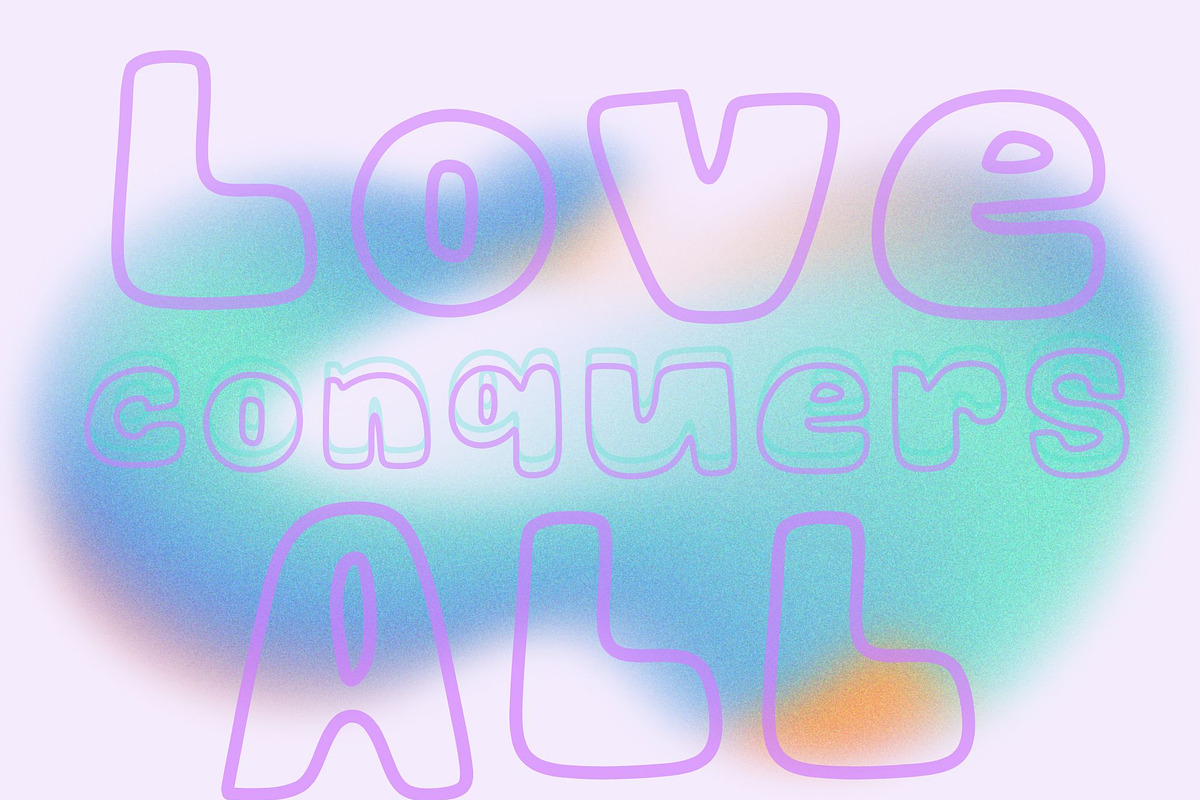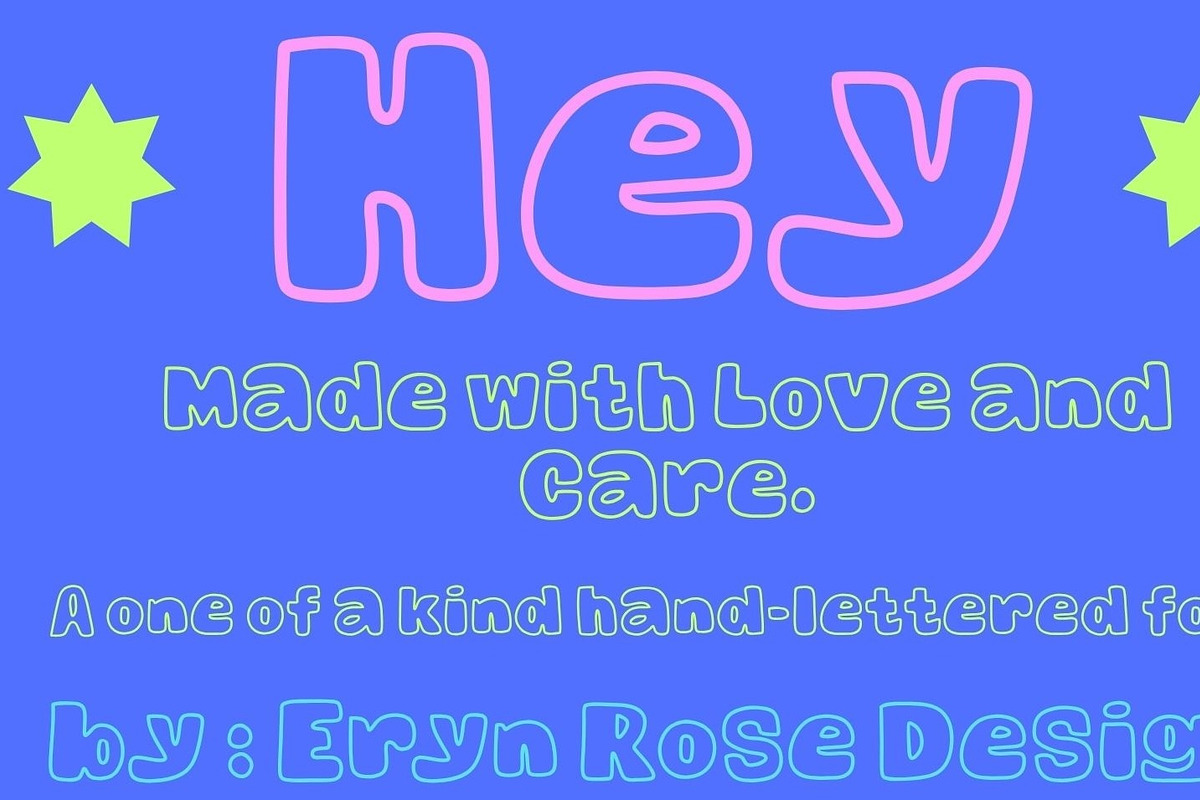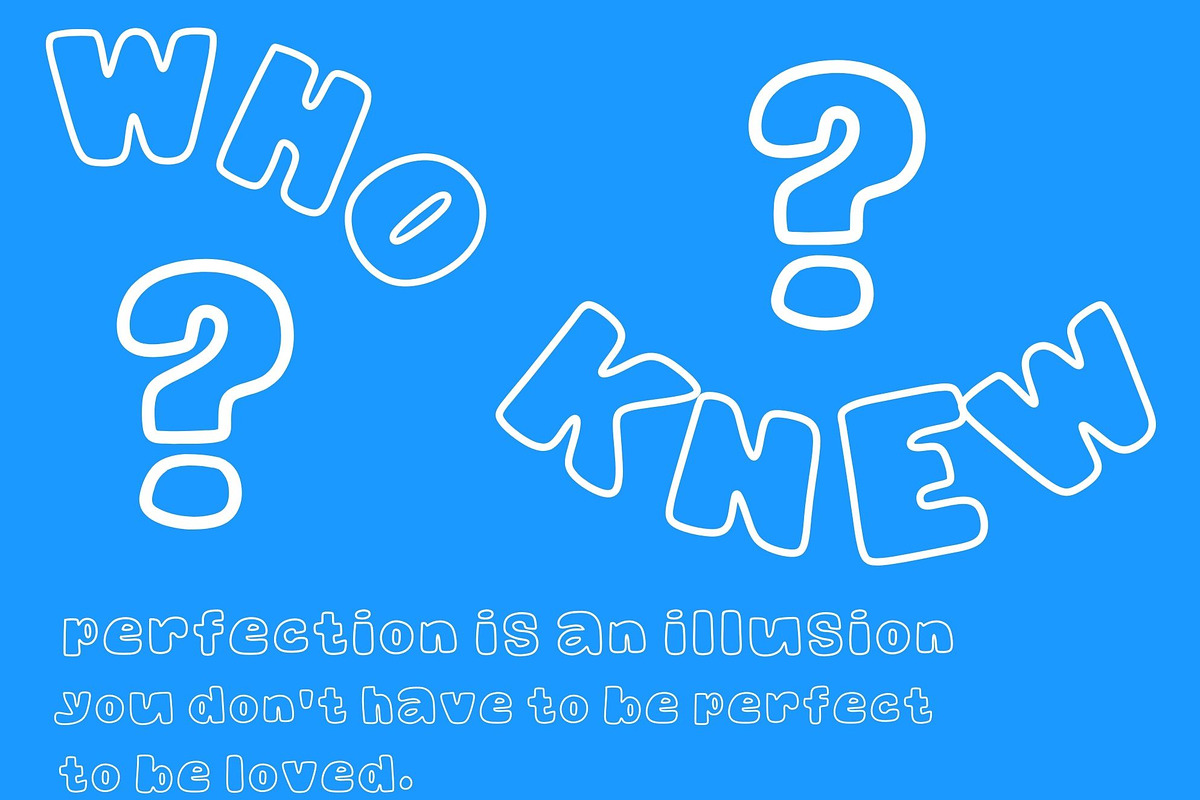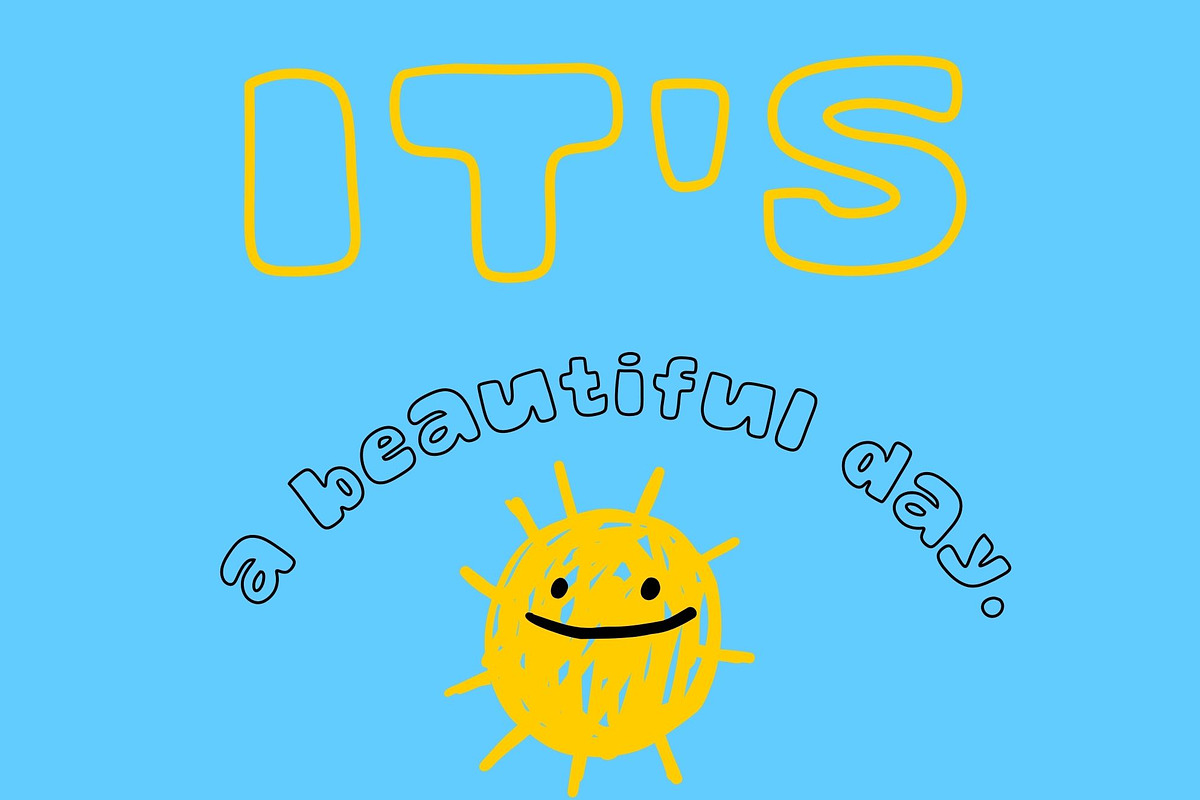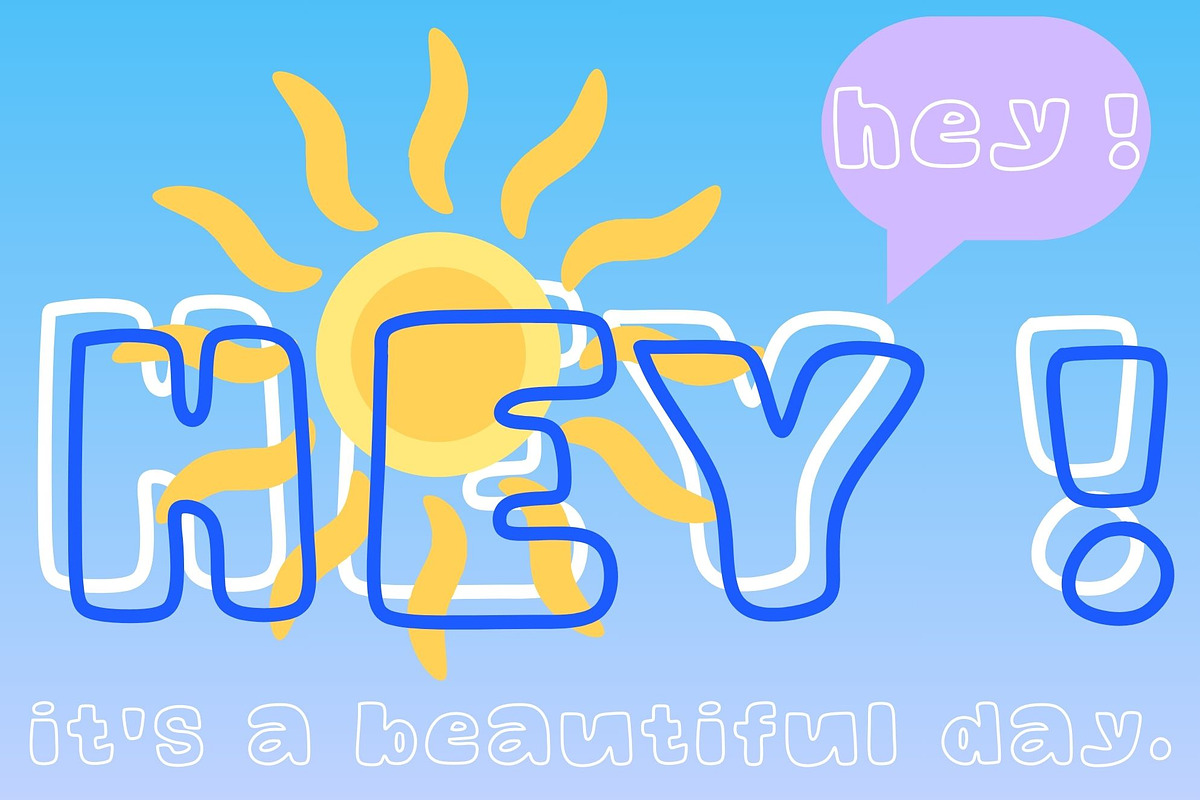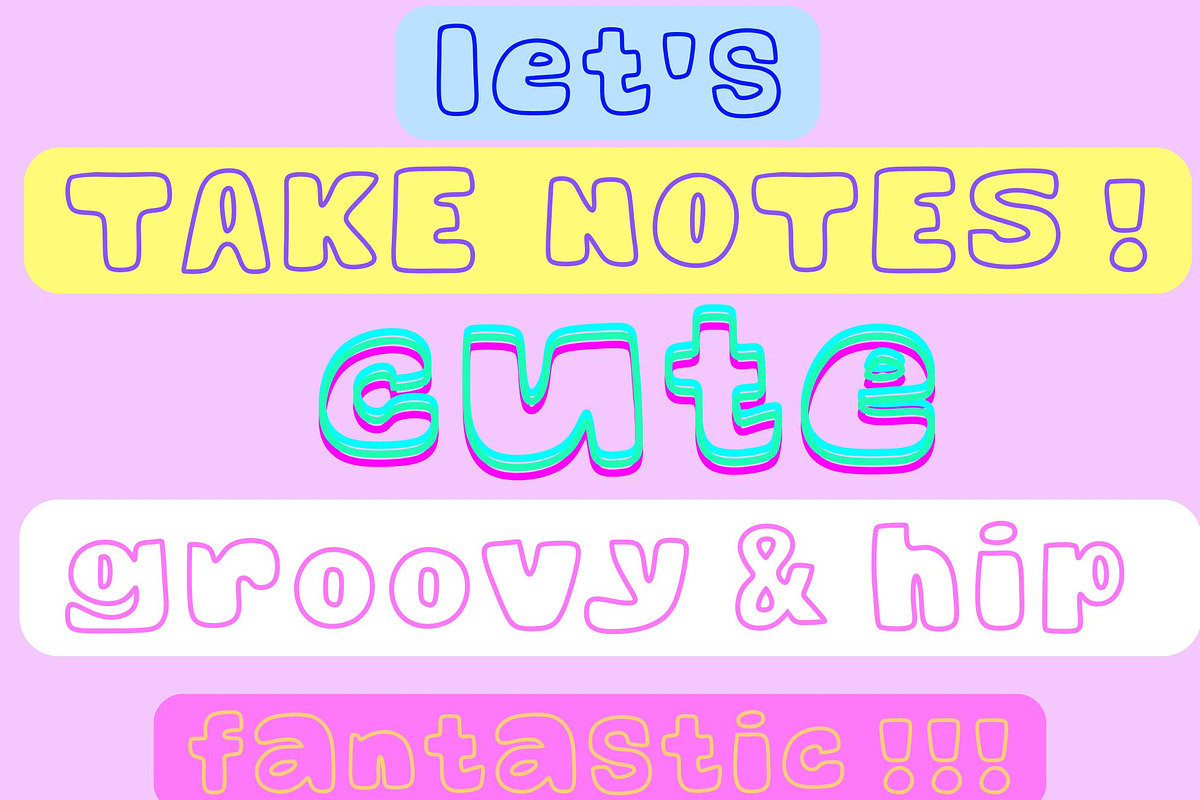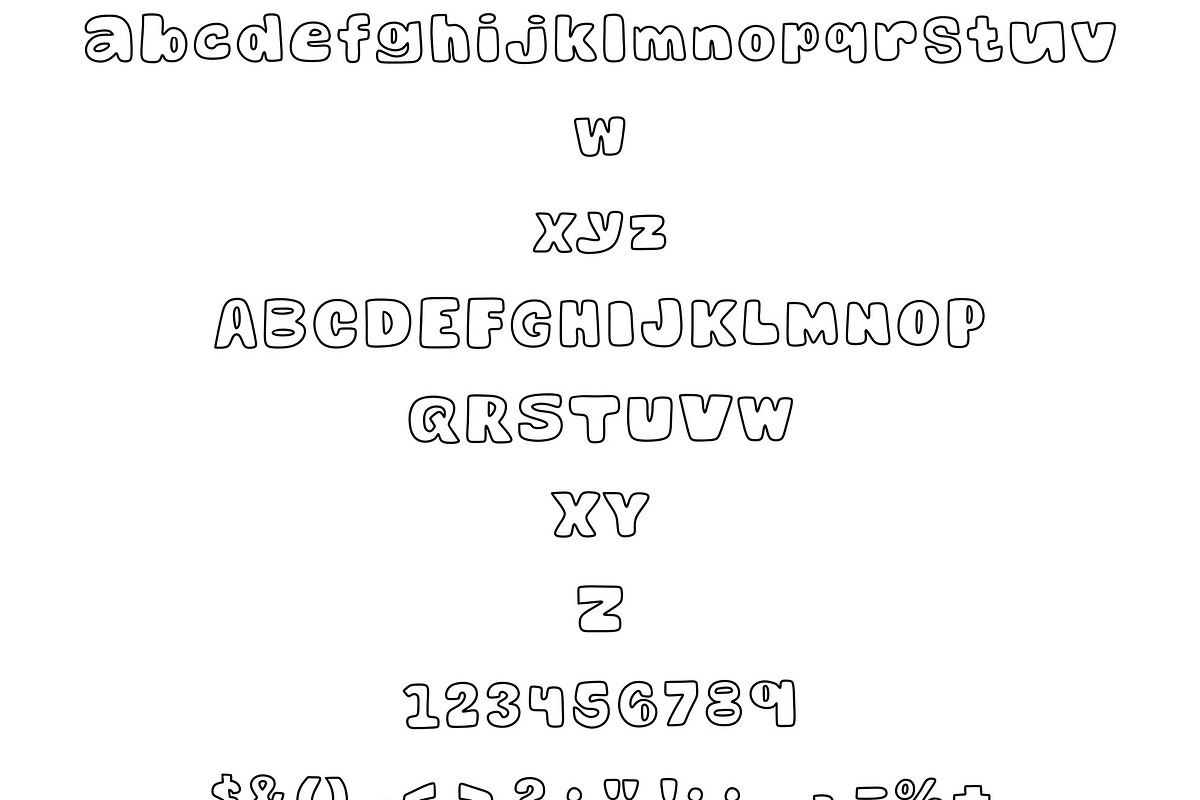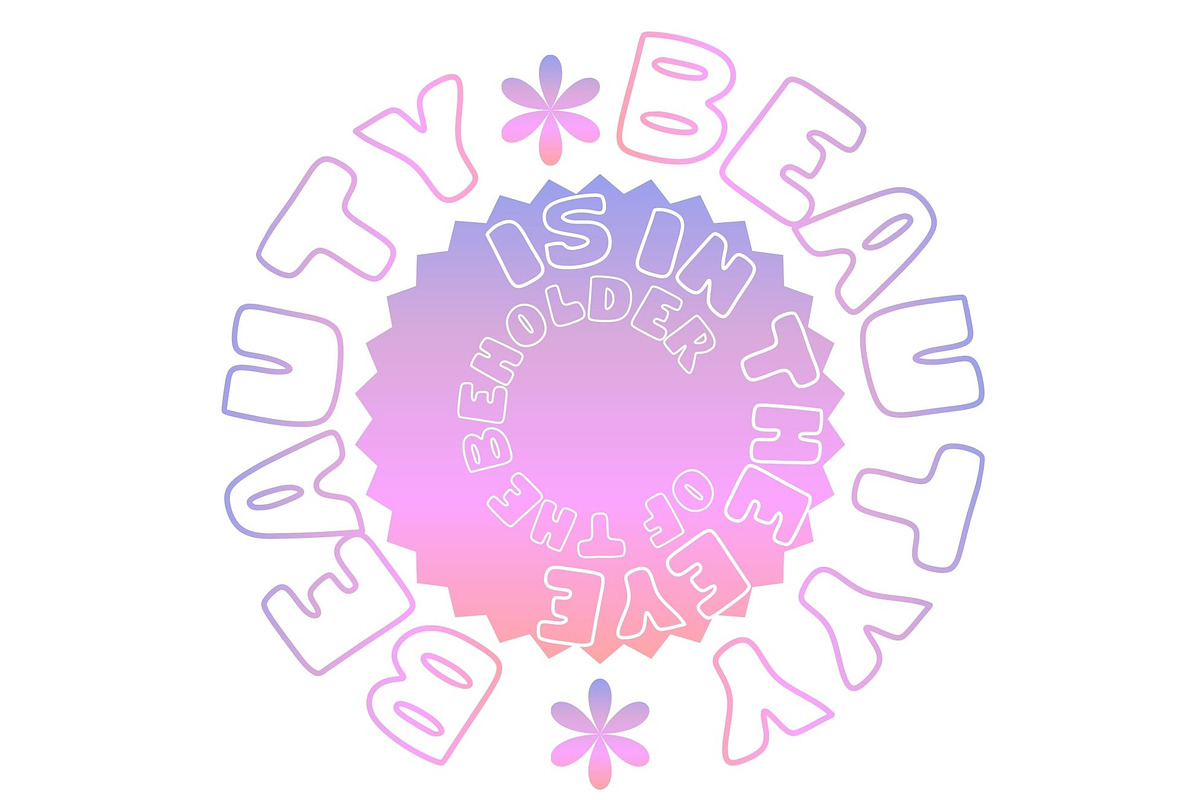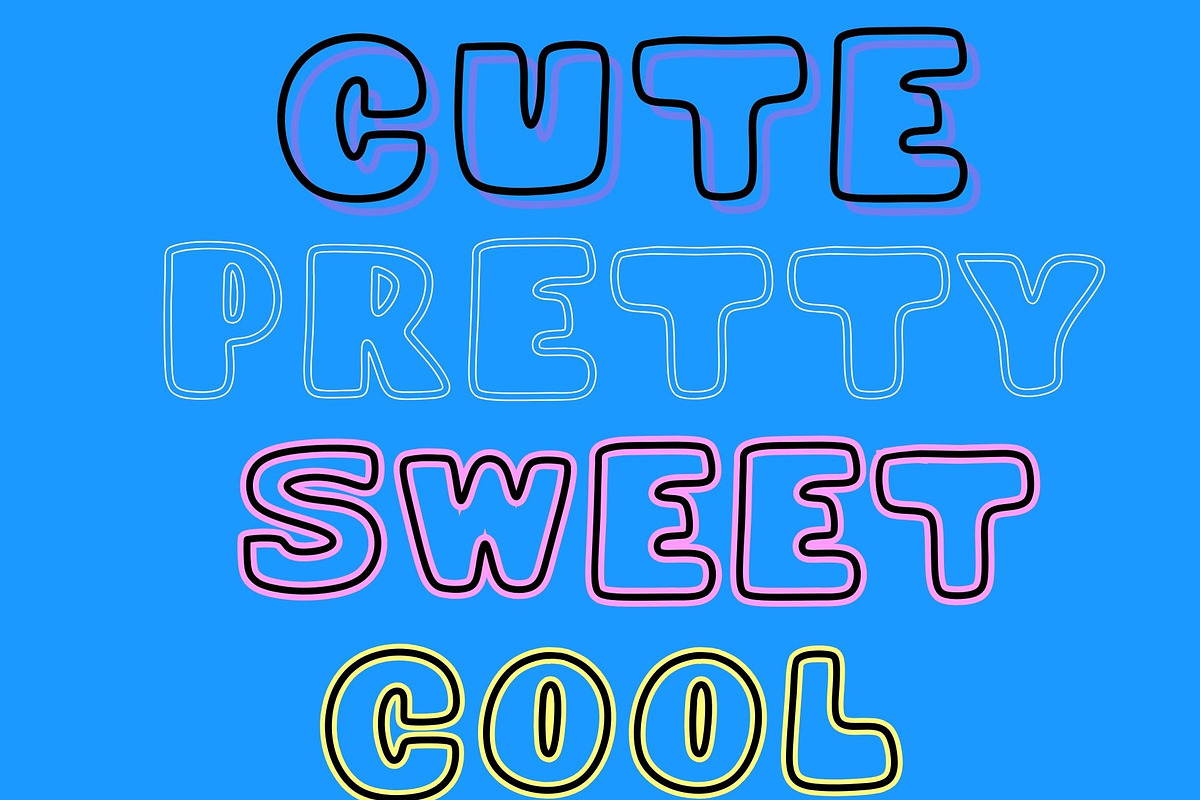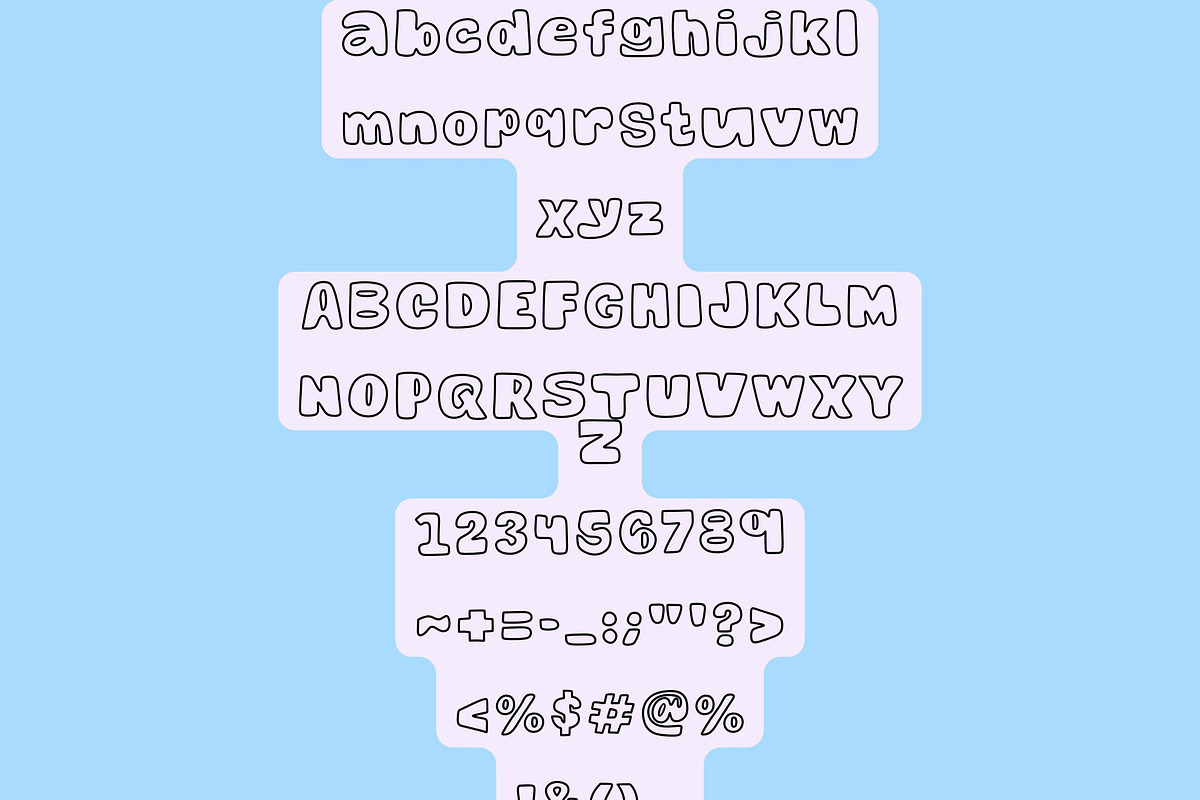
HEY an outline bubble font
HEY. A hand-written outline bubble font. This font is versatile and on trend. Wonderful for a display font as well as stationary, web, or product design. This font is a classic bubbly outline containing some new and modern details. If you are looking for a clean outline font that can easily be used in layered designs, look no further. If you love a good outline effect , especially when you can see what's underneath , this font is for you. HEY is happy and uplifting , with an approachable aesthetic. Have Fun.
full alphabet lower and uppercase
numbers and standard symbols